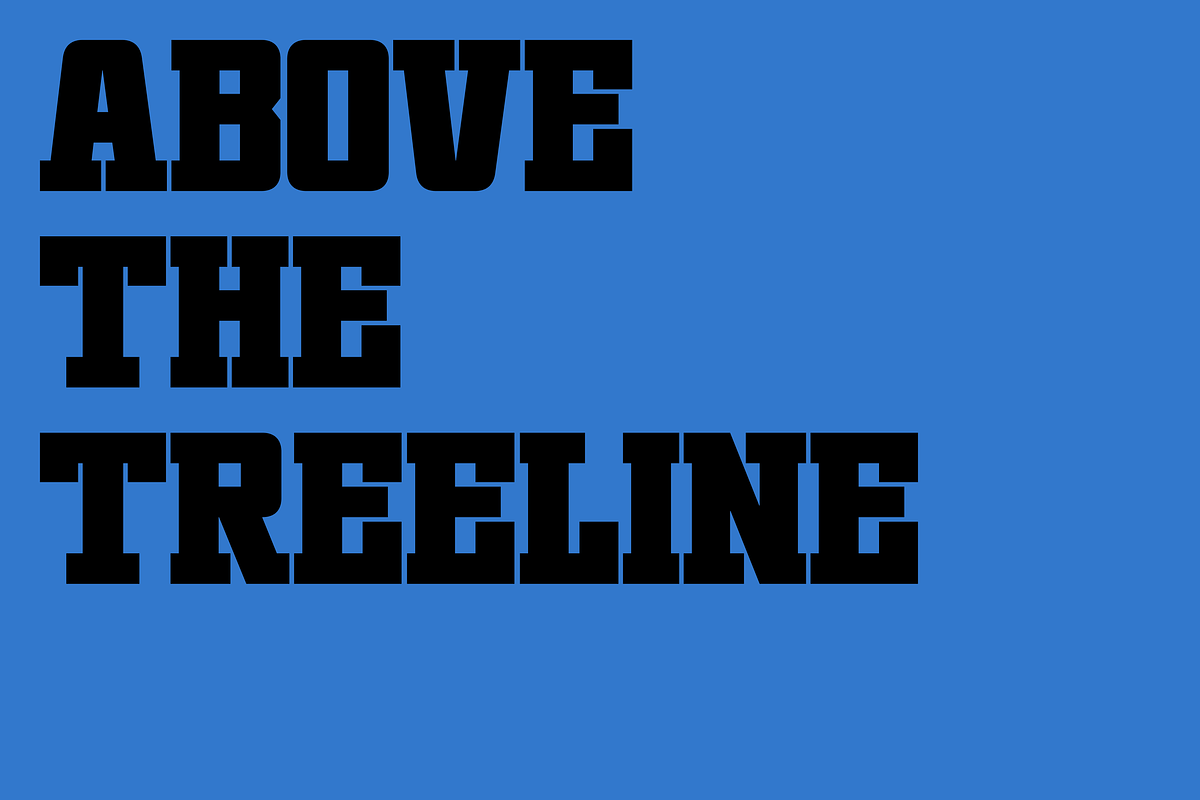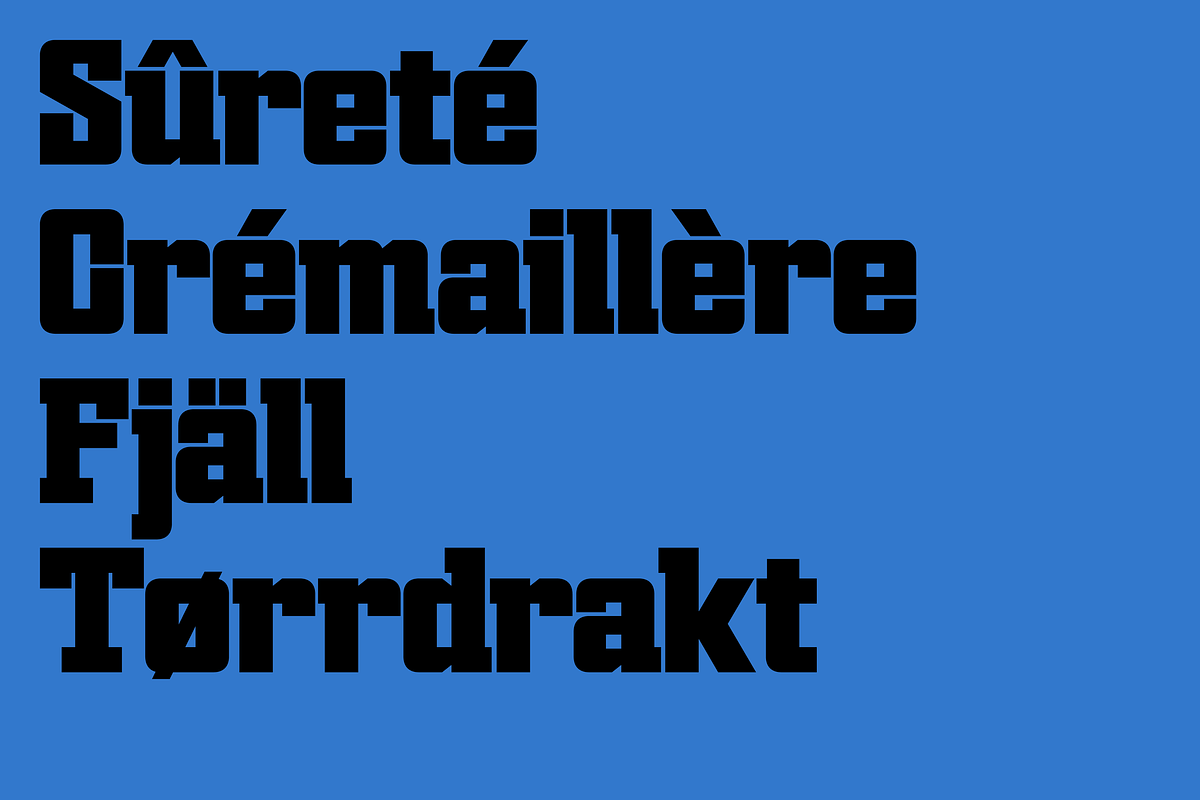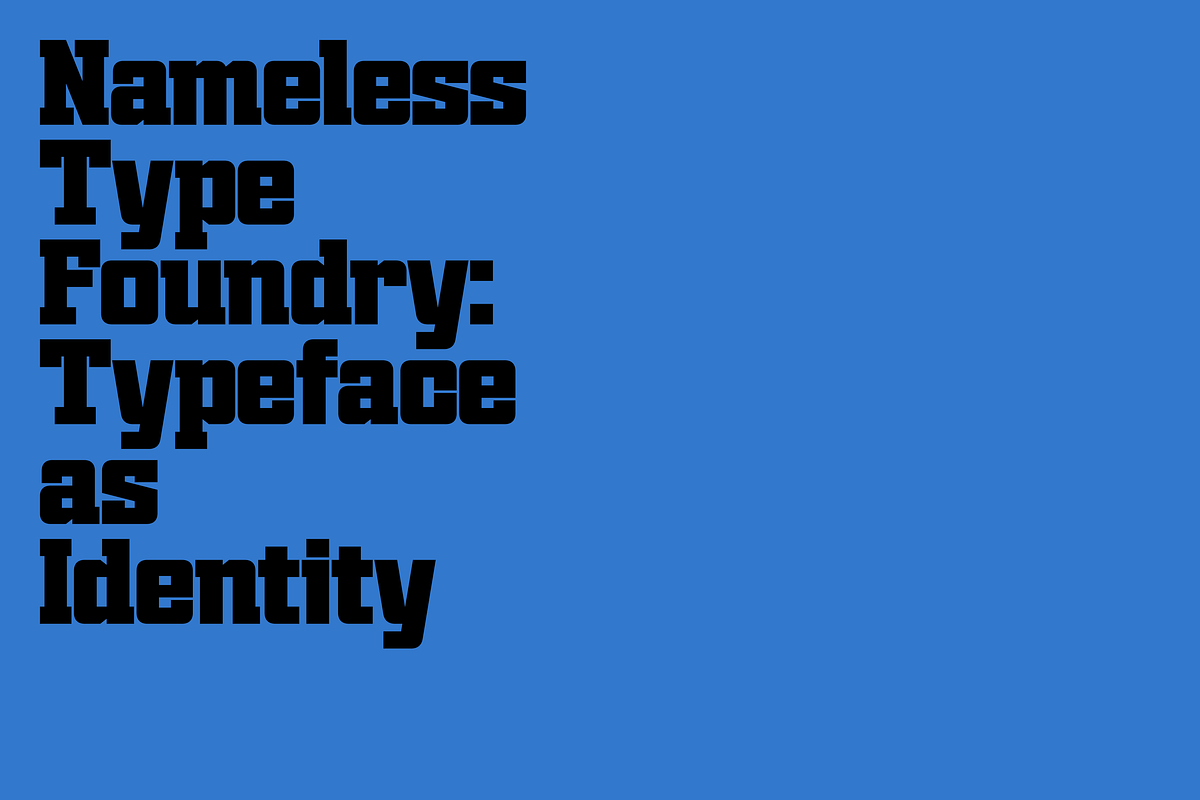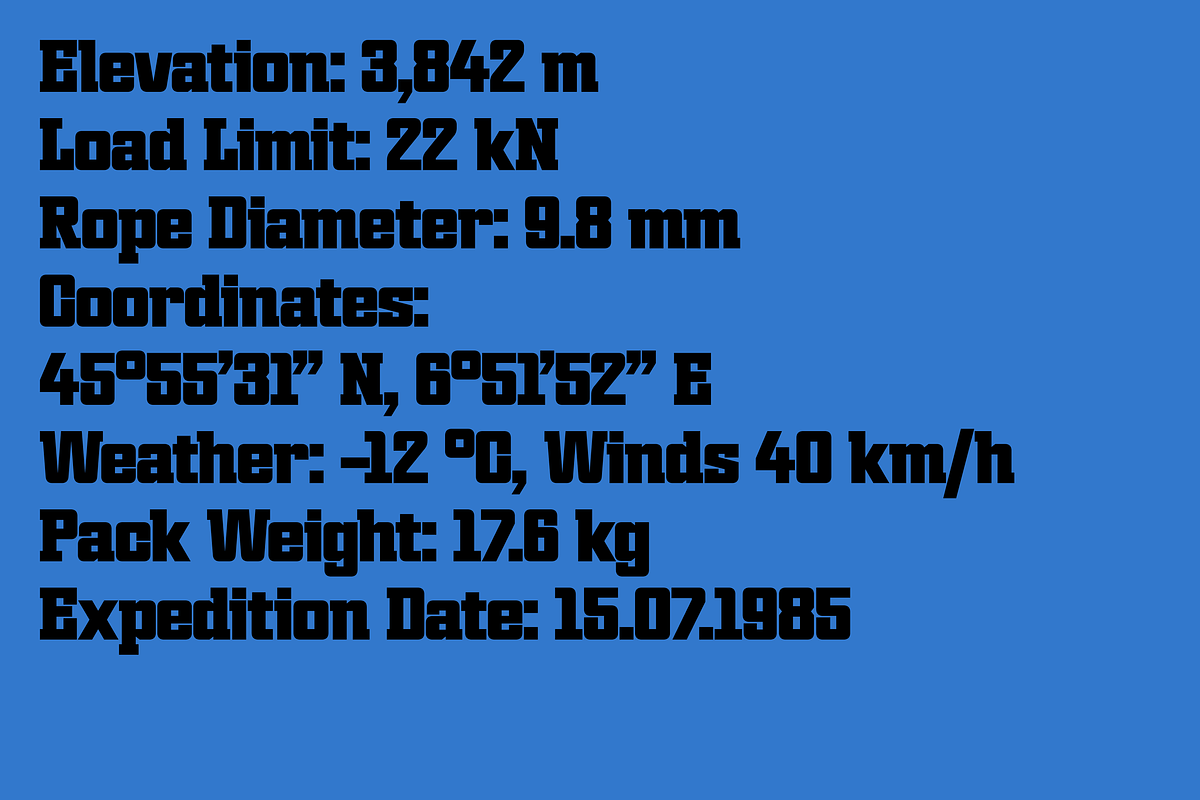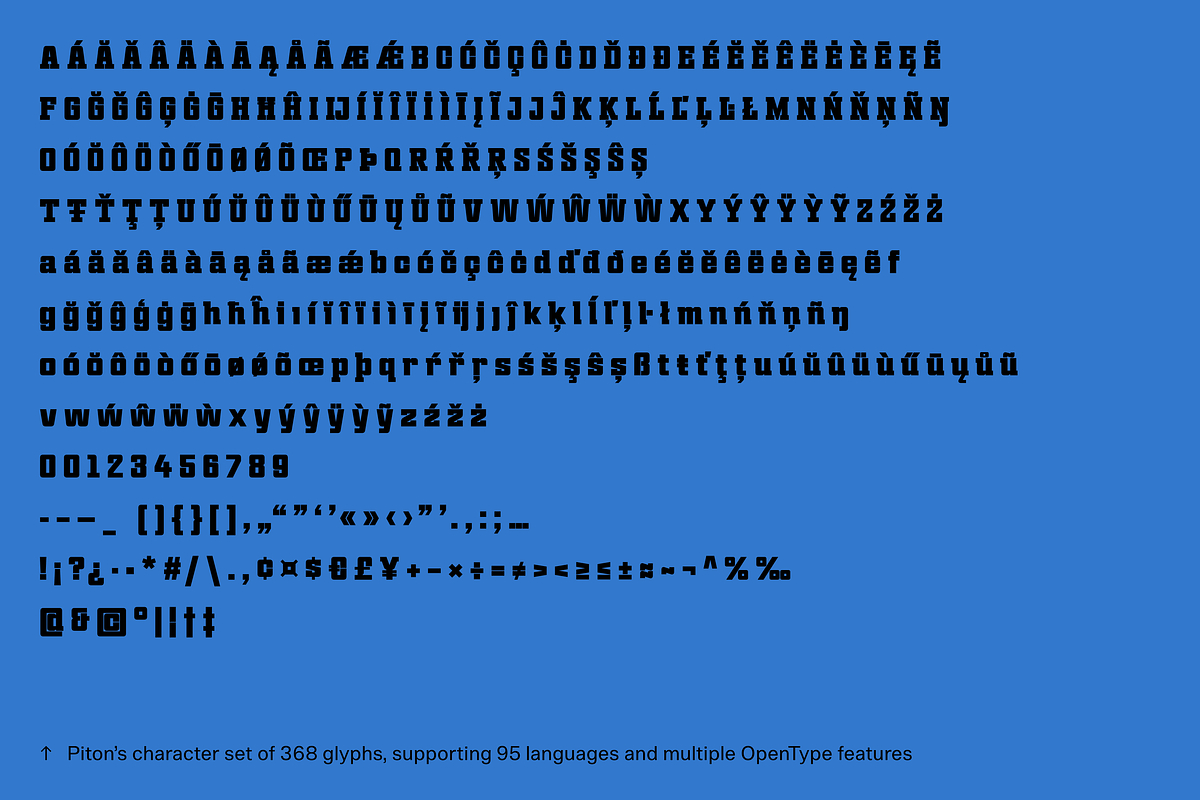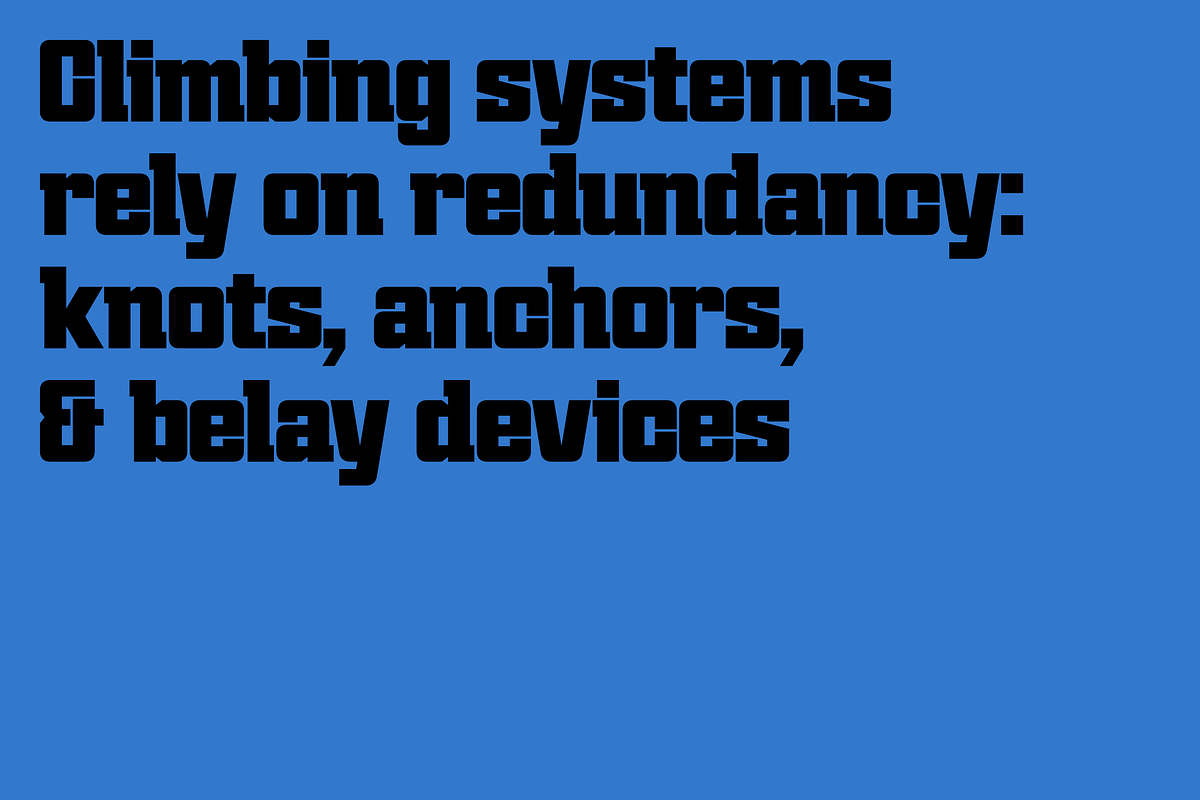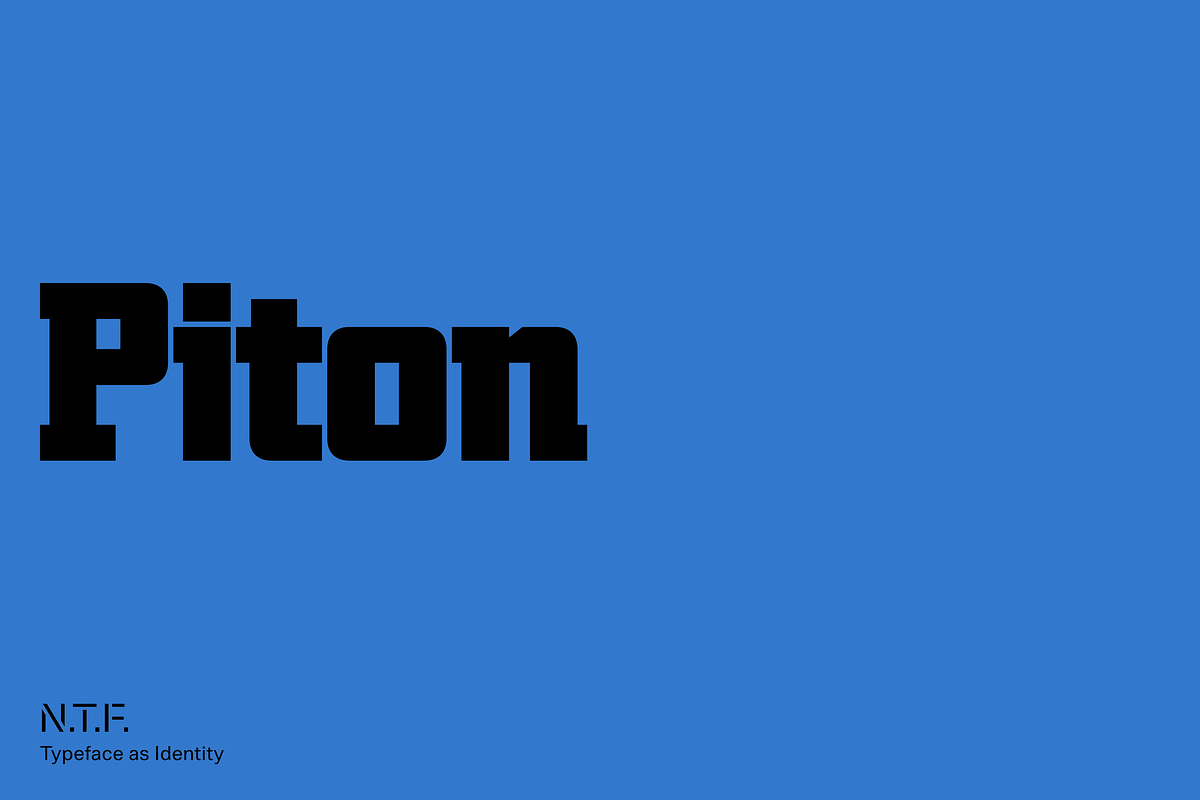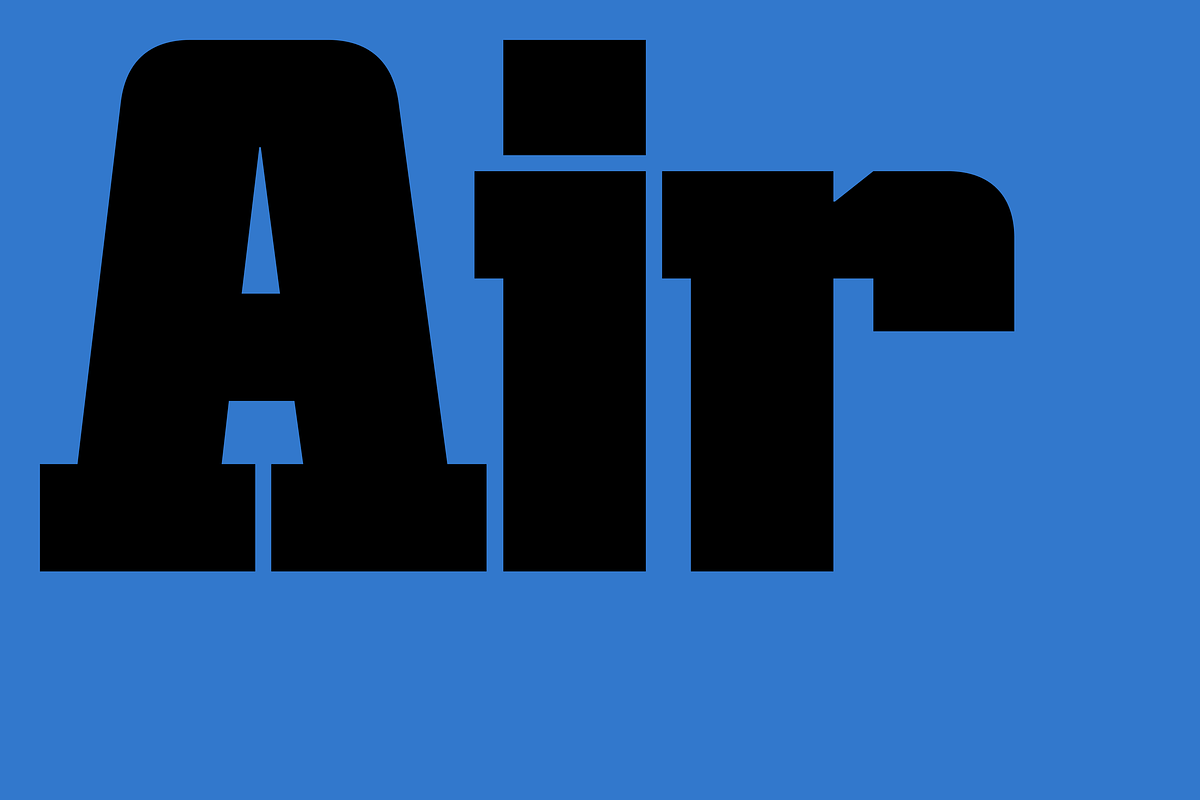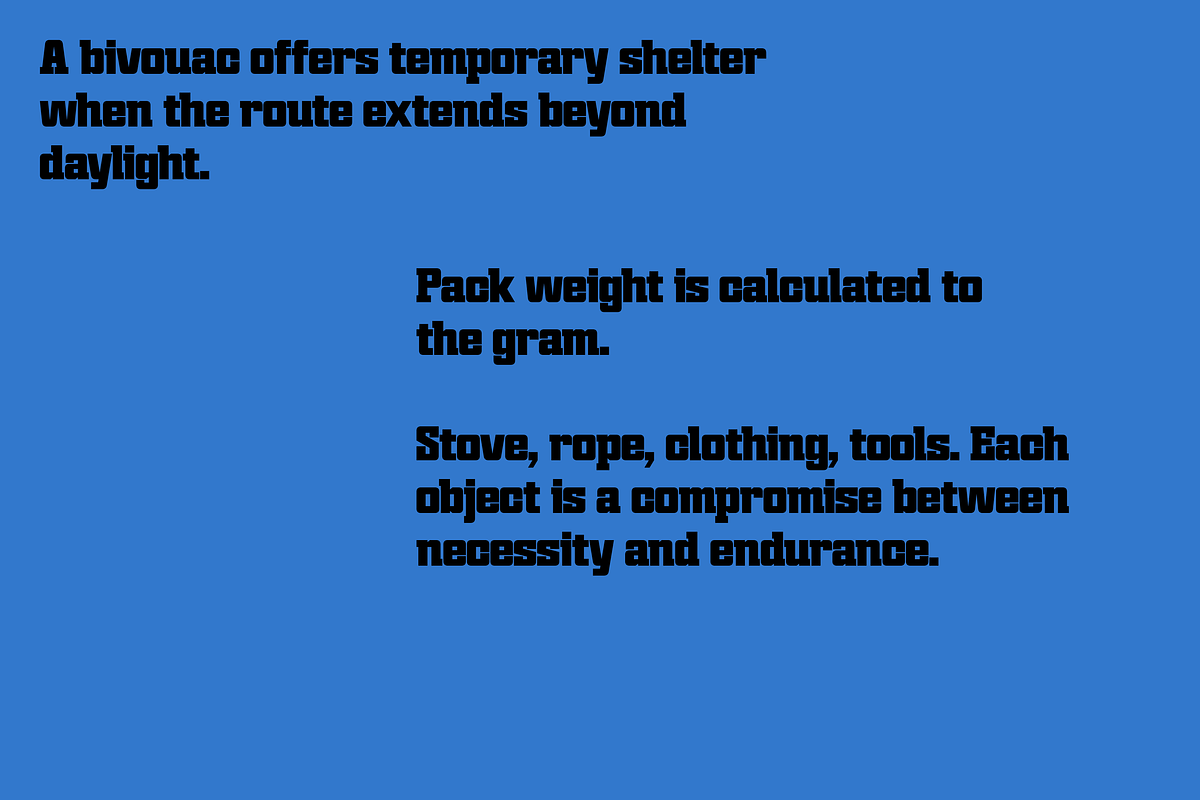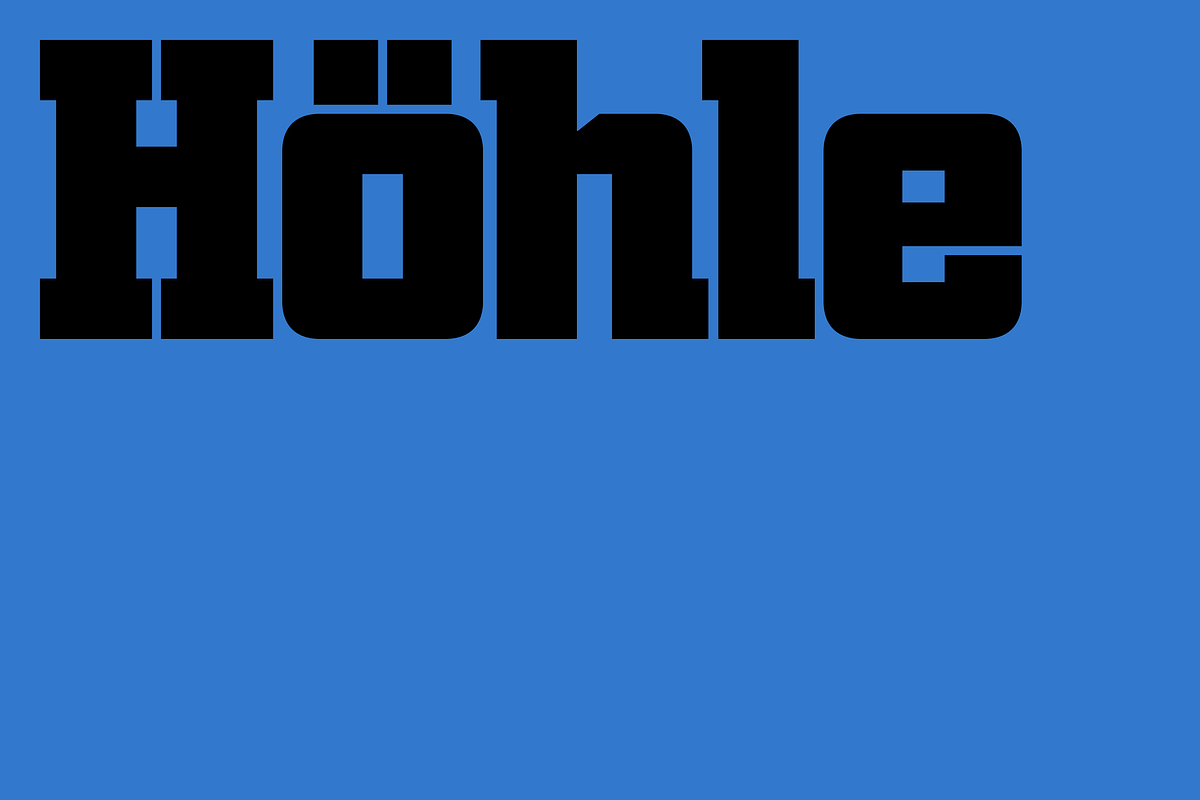
Piton
Piton is a slab serif display typeface constructed for clarity under pressure. With a tall x-height and condensed counters, it produces compact forms where negative space is as present as stroke. The result is a rhythm of slabs and voids that reads as much like structure as it does typography.
The design draws directly from mid-century U.S. national park brochures and climbing ephemera. These utilitarian sources, originally intended to communicate in rugged conditions with limited means, are distilled here into a rigid slab serif. By removing ornament and standardizing proportion, Piton turns vernacular print language into a system of weight and precision.
Released in a single weight, Piton includes 368 glyphs and supports 95 languages. It features case-sensitive forms and oldstyle numerals. Designed for display applications and typography-driven layouts, Piton is most effective where text is asked to carry both message and material presence.